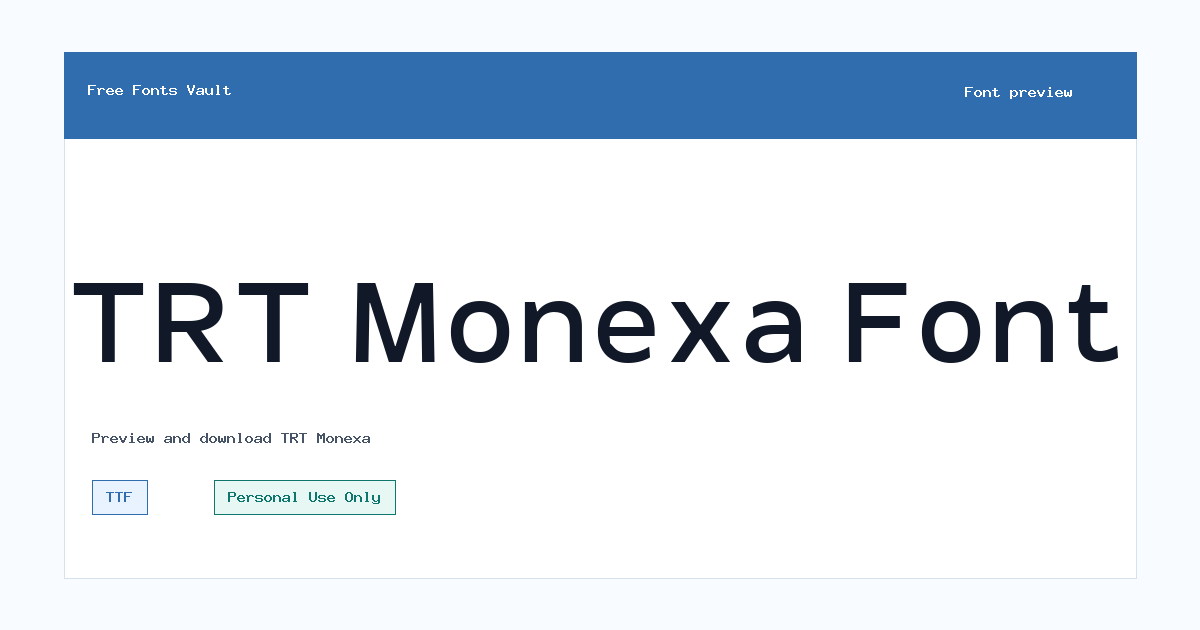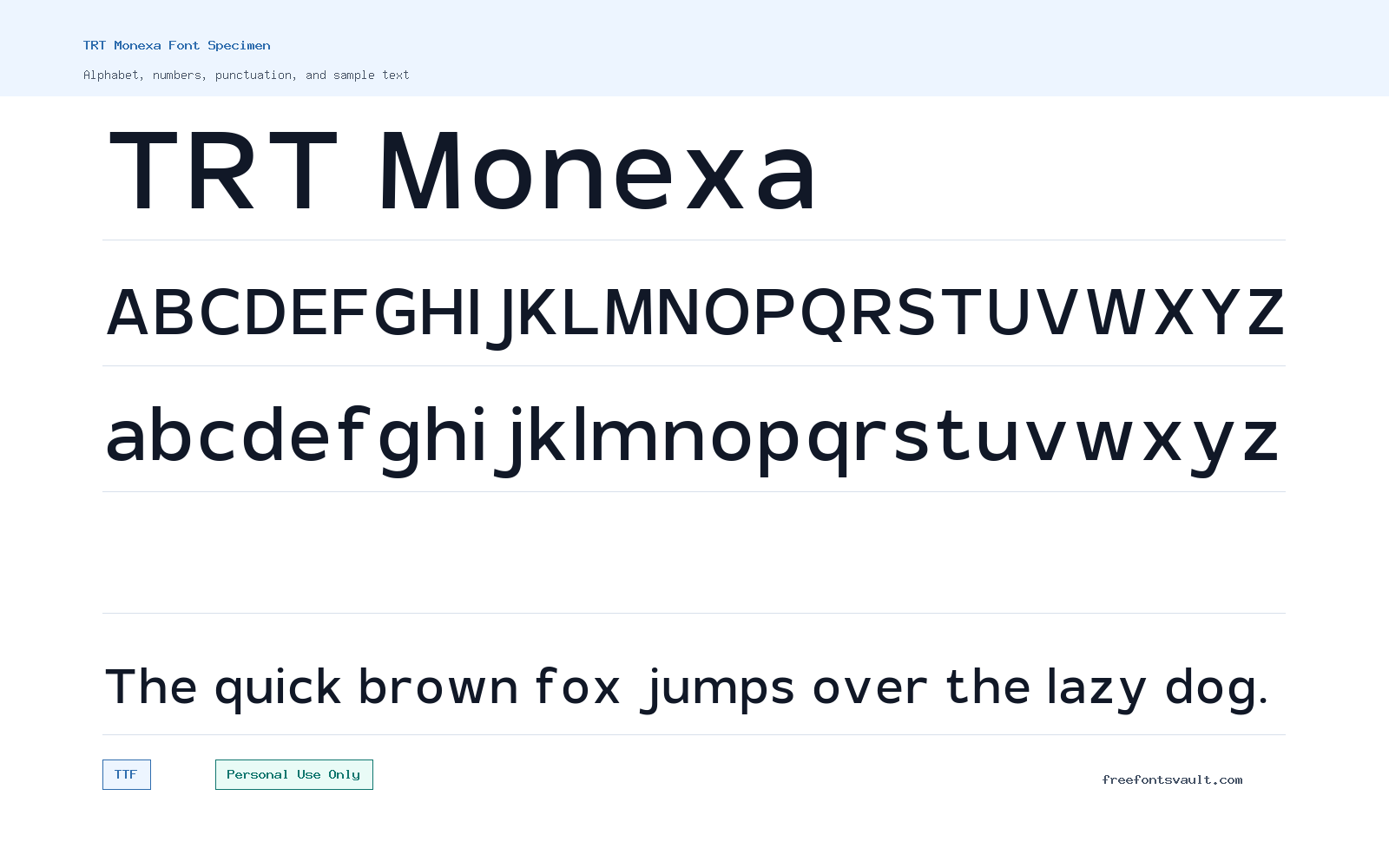
TRT Monexa
- Designer Hanif Dwi Sulistyo of Truetype
- Foundry Truetype
TRT Monexa font.
TRT Monexa is a sans serif font family by Hanif Dwi Sulistyo of Truetype. It comes with Regular and Bold TTF files, making it useful for testing clean display text, headings, poster layouts, logo ideas, and simple brand mockups before choosing a final licensed font.
About TRT Monexa Font
TRT Monexa is presented as a sans serif font family, so its main value is likely in direct, uncluttered lettering rather than decorative serif detail. The available weights are Regular and Bold, which gives you enough contrast to build simple typographic hierarchy in a preview: use Regular for supporting lines, captions, or short body copy, and use Bold for names, titles, callouts, and stronger visual emphasis. Because there is no confirmed extended family information here, it is best to treat TRT Monexa as a compact display and layout-testing option rather than a full editorial type system.
For visitors trying the font preview, start with the exact words you plan to use. Test a short logo name, a headline, a two-line poster title, and a mixed-case phrase with numbers. Look closely at spacing between letters, the shape of uppercase forms, and how the Bold weight behaves at larger sizes. Sans serif fonts can feel very different depending on tracking, size, and contrast, so avoid judging it from one sample word only. If you are using TRT Monexa for logo exploration, compare Regular and Bold side by side and try wider letter spacing before committing to a direction. For posters and social graphics, keep the text short and let the Bold weight carry the main message. For web mockups, test headings, buttons, menu labels, and hero text, but do not assume the personal-use license covers a live commercial website.
- Sans serif font family with Regular and Bold styles for simple hierarchy.
- Useful for previewing headlines, logo concepts, posters, mockups, and short display text.
- Logo concept drafts and early brand direction testing
- Poster titles, event graphics, and social media headline layouts
- Website hero text and navigation mockups
- Presentation covers and simple promotional visuals
- Typography experiments where Regular and Bold contrast is enough
TRT Monexa is credited to Hanif Dwi Sulistyo of Truetype.
What font styles are included with TRT Monexa?
Who designed TRT Monexa?
TRT Monexa is credited to Hanif Dwi Sulistyo of Truetype.
What is TRT Monexa best used for?
It is a practical choice for testing short display uses such as logos, posters, social graphics, website headers, buttons, and presentation titles. For longer reading text, test carefully and consider pairing it with a dedicated body font.
What should I pair with TRT Monexa?
For a simple layout, pair the Bold weight with the Regular weight for headings and subtext. If you need paragraphs, try a neutral, highly readable body font so TRT Monexa can stay focused on titles and display elements.